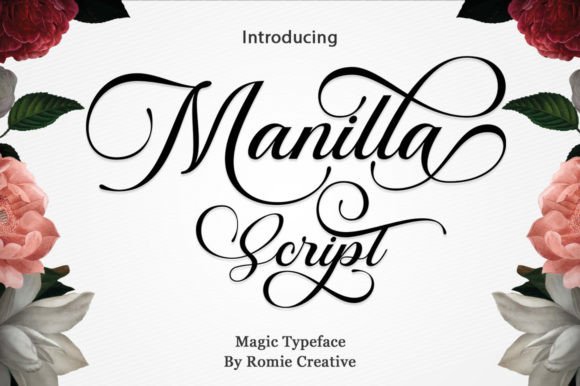
Introducing Manilla Script Font, a resplendent script font that's like a breath of fresh air in the world of typography. Designed with meticulous precision and intricate detailing, this font is a visual masterpiece, adding a touch of elegance and charm to any project.
Step into a world of creative possibilities with Manilla Script. This font is not just a collection of letters; it's an artistic journey that transforms your ideas into stunning realities. Imagine your words dancing across the page, each character a delicate stroke of brilliance, captivating the eyes of your audience.
Whether you're designing large posters, creating eye-catching logos, or crafting heartfelt invitations, Manilla Script rises to the occasion. Its versatility knows no bounds, making it the perfect choice for a wide range of projects.
With Manilla Script, you'll discover a font that's more than just a tool; it's an extension of your creativity. Its enchanting curves and graceful lines add a touch of sophistication to any design, leaving a lasting impression on your audience.
Manilla Script is more than just a font; it's an invitation to let your imagination soar. Its PUA encoding makes accessing glyphs and ligatures a breeze, giving you the freedom to explore endless creative possibilities.
Don't settle for ordinary fonts that blend into the background. Embrace the extraordinary with Manilla Script. Its captivating presence will make your designs shine, leaving a lasting impact that lingers in the minds of your audience.